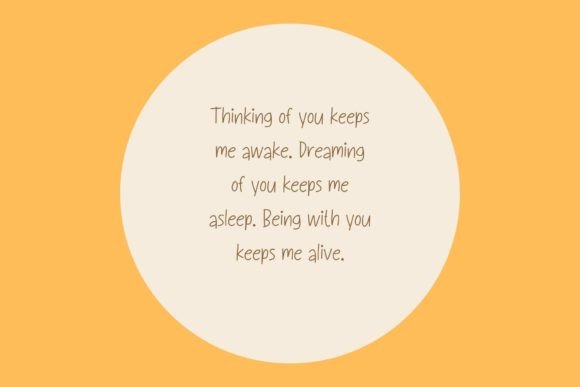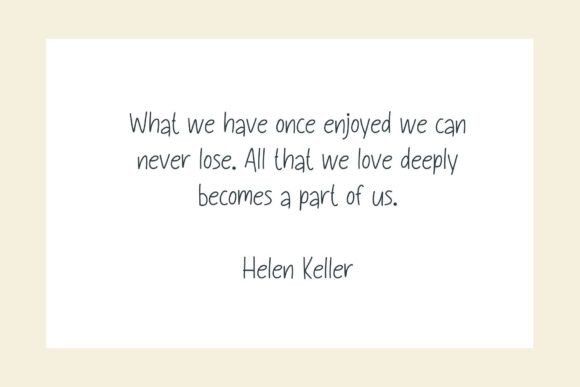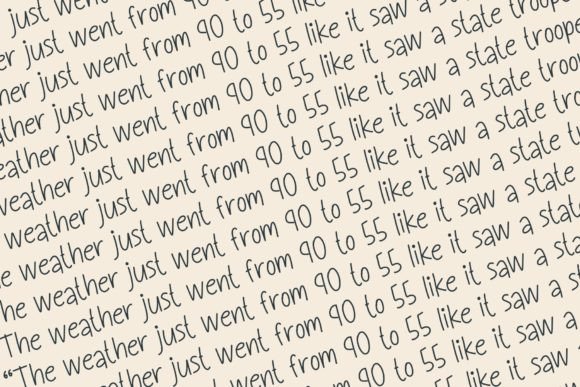
Introduction to Chandler Font
Have you ever found yourself stuck in a creative rut, staring at a blank canvas with no clear direction? For designers, this moment of uncertainty is all too familiar. But what if you had the perfect font to spark your imagination and guide your creative vision? Enter Chandler Font, a stunning typeface that’s about to become your new go-to design resource.
As a designer, you’re constantly on the lookout for high-quality fonts that can elevate your work and bring your creative projects to life. Chandler Font checks all the right boxes, offering a clean and elegant design that’s perfect for branding, editorial layouts, and invitations. And the best part? It’s available for free download, making it an invaluable addition to your design toolkit.
With its transparent background and versatile style, Chandler Font is the perfect solution for designers looking to add a touch of sophistication and timeless beauty to their work. Whether you’re working on a small project or a large-scale campaign, this font is sure to impress and inspire.
Key Features of Chandler Font
- High-quality font design suitable for various creative projects, including logos, headings, and body text.
- Transparent background, allowing for seamless integration with images and other design elements.
- Designed with a unique and modern aesthetic, making it perfect for contemporary creative projects.
Honest Review: Chandler Font
I recently came across the Chandler Font, and I must say it’s a great addition to any designer’s toolkit. The font is available for free download, making it an excellent resource for creative projects on a budget.
The Chandler Font boasts high-quality typography, with clean lines and a unique aesthetic. Its transparent background makes it perfect for use on images and graphics, allowing for seamless integration with other design elements.
- High-quality typography
- Unique aesthetic perfect for creative designs
- Limited font styles and variations
- Not suitable for formal or traditional designs
Overall, I’m impressed with the Chandler Font’s performance. While it may have some limitations, its unique aesthetic and high-quality typography make it a valuable resource for designers working on creative projects. If you’re looking for a free font that adds a touch of personality to your designs, the Chandler Font is definitely worth checking out.
Chandler Font
Tips for Getting the Most Out of Chandler Font
Use the Chandler Font in conjunction with a transparent background to create a high-quality design resource. Experiment with different font sizes and styles to add depth and creativity to your project. You can also use the font in combination with other design elements to create a unique and eye-catching design.
The Chandler Font is a versatile design resource that can be used in a variety of creative projects, including business cards, brochures, and social media graphics. It’s also a great choice for personal projects, such as creating a free download or a high-quality design asset.
Alternatives to Chandler Font
Pacifico is a beautiful, elegant script font ideal for creative projects that require a touch of sophistication. It’s a great alternative to Chandler Font for designers looking for a high-quality font with a transparent background. Pacifico is free to download and can be used in a variety of design applications.
When to use: Wedding invitations, branding materials, and other design projects that require a refined and elegant look. Pacifico compares to Chandler Font in its elegance and sophistication, but has a more classic feel.